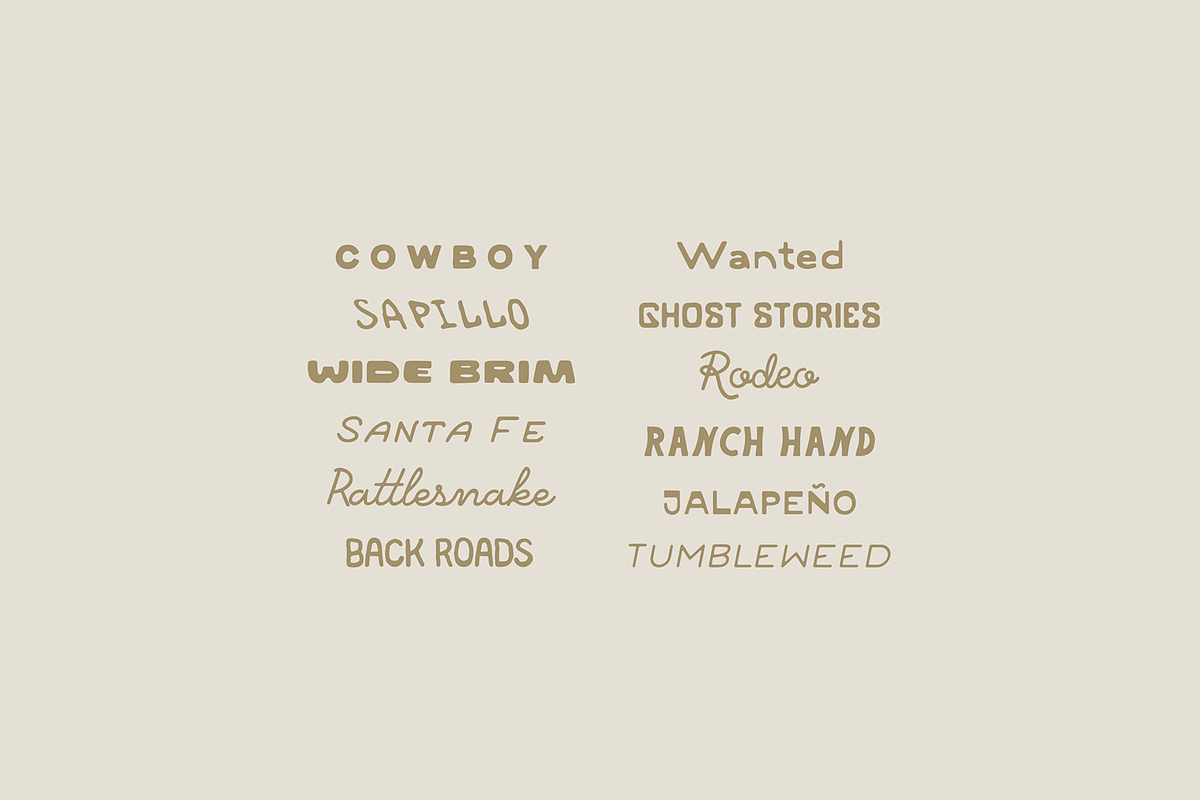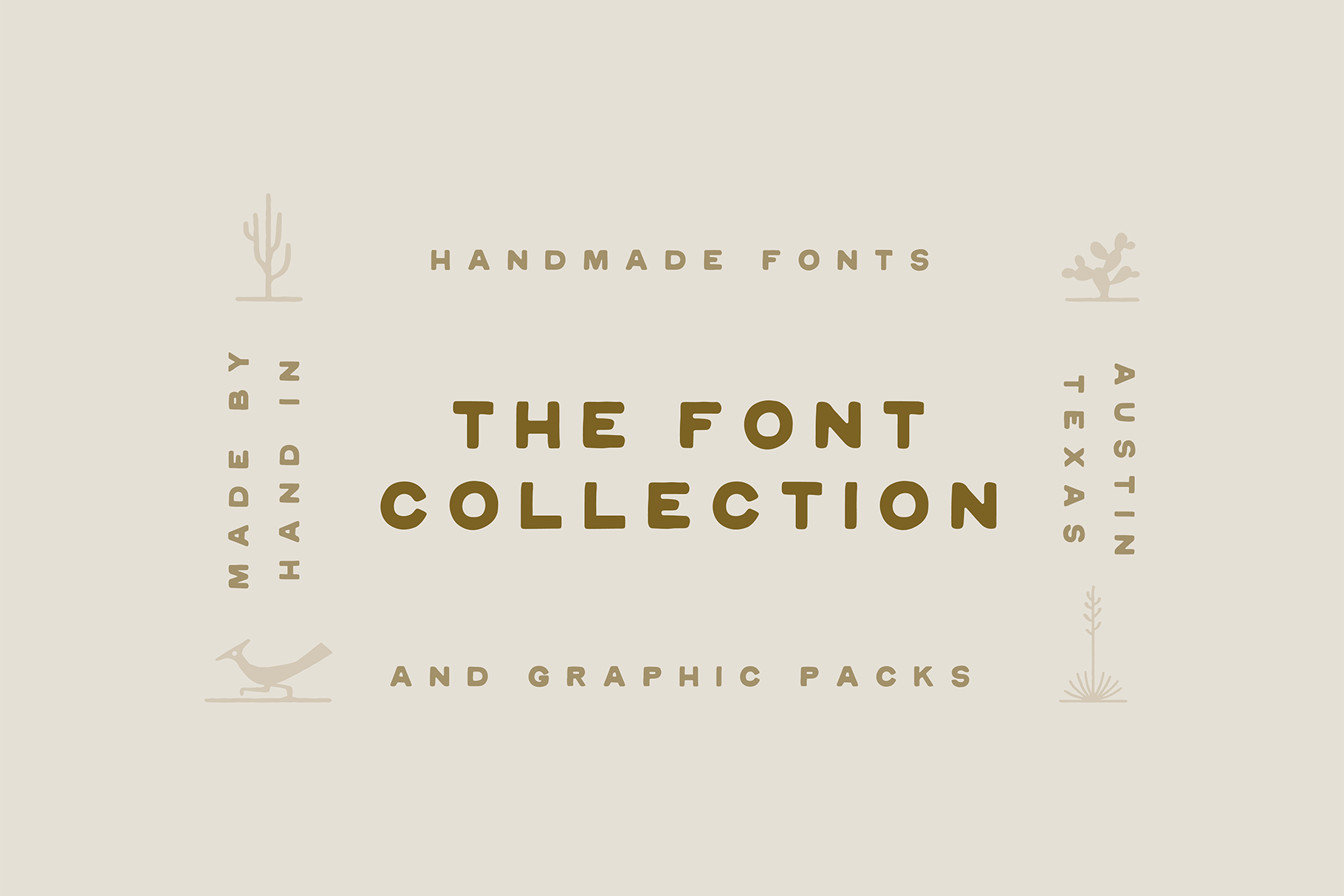
The Western Font Bundle
My goal for 2022 was to make and release a font every month. Well, it's almost November and I've got all 12 fonts signed, sealed, and delivered. (Yes, I am an Oxford Comma person)
Please enjoy using these on your minimal, natural, desert, southwestern, retro, vintage designs. Each font was inspired in some way by my travels (primarily in the southwestern US) or inspired from a culmination of package, brand, or poster designs that sparked something in me.